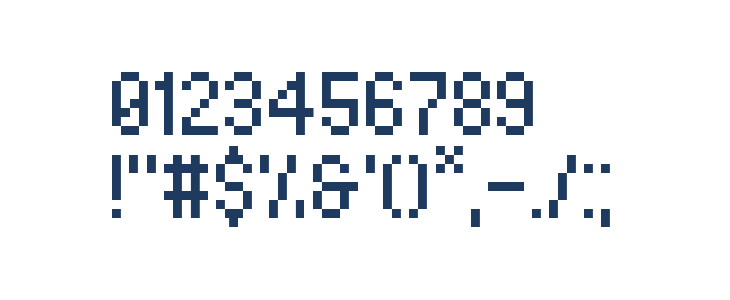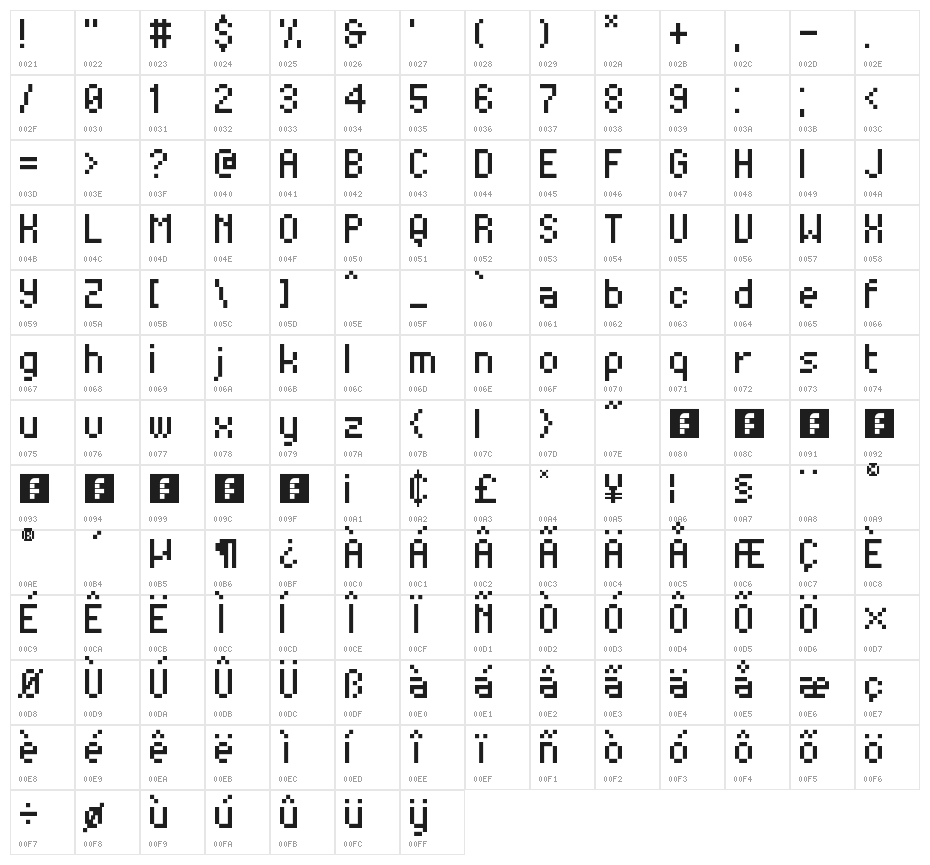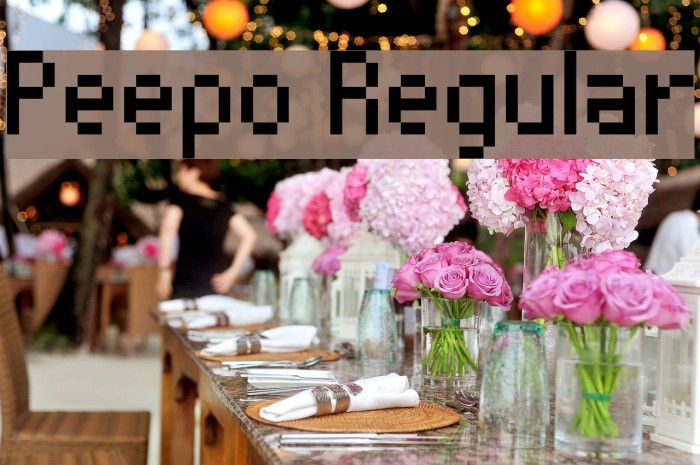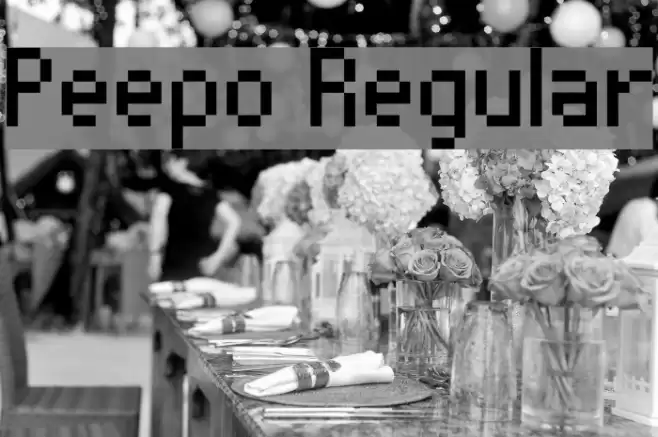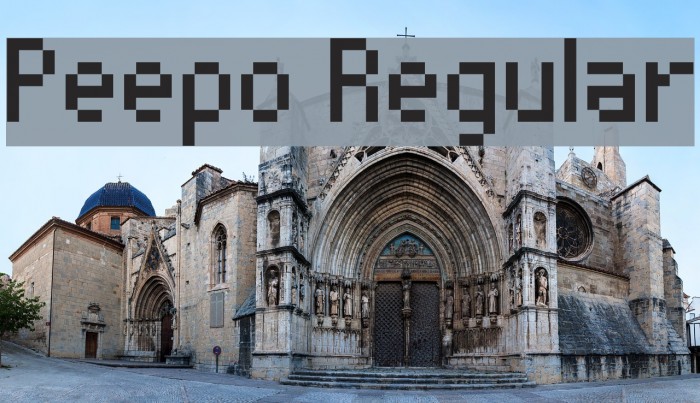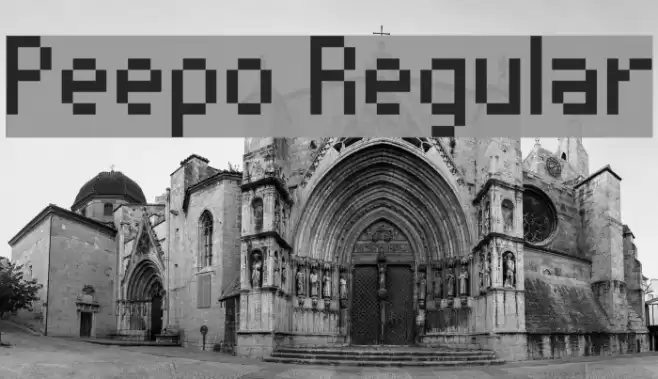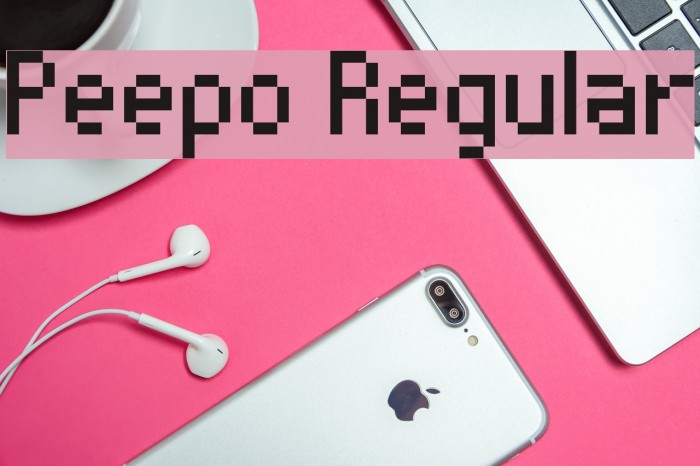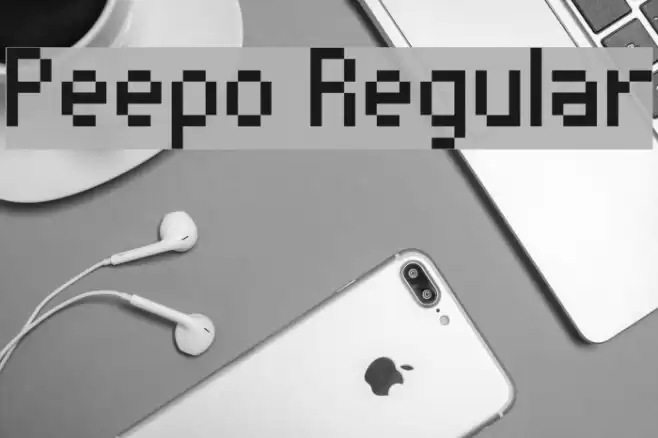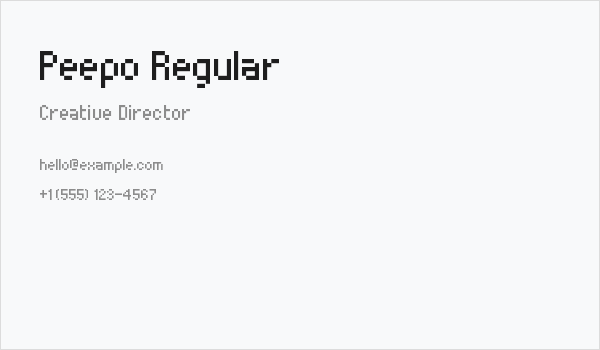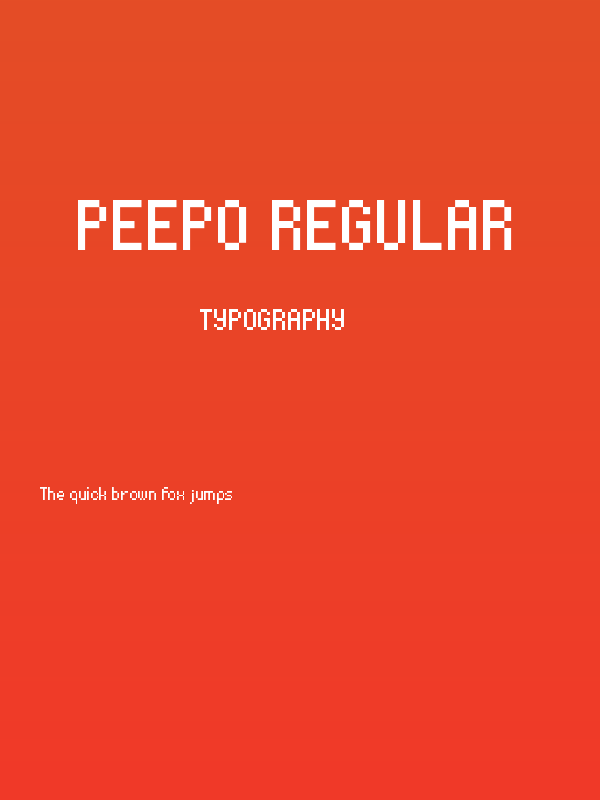
Peepo Regular Font
Peepo Regular Description
This font features a pixelated, blocky design reminiscent of early digital displays and classic video games. Each character is composed of uniform square pixels, creating a retro aesthetic that is both nostalgic and visually striking. The uppercase and lowercase letters maintain a consistent height and width, contributing to a monospaced appearance. The numbers and special characters follow the same pixelated style, ensuring cohesion across all elements. This design is ideal for projects that aim to evoke a sense of nostalgia or pay homage to the early days of digital typography.
| Use Case | Logos, Digital displays, Retro-themed designs |
| Proposed Projects | Ideal for retro video games, digital art projects, and nostalgic branding. |